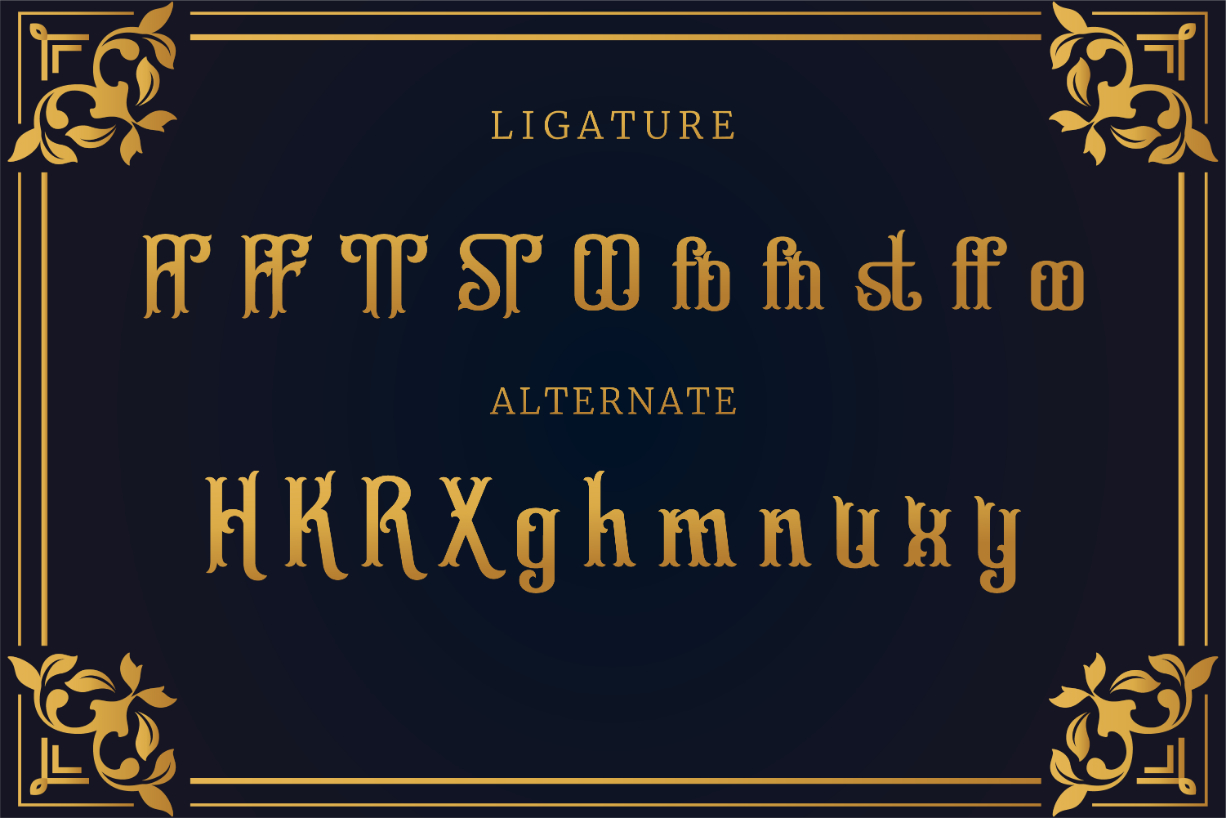
Castelly Font
About Castelly Font
Castelly, a contemporary blackletter font, blends classic elegance with a modern twist. It seamlessly merges uniqueness and beauty to cater to a wide range of design requirements.